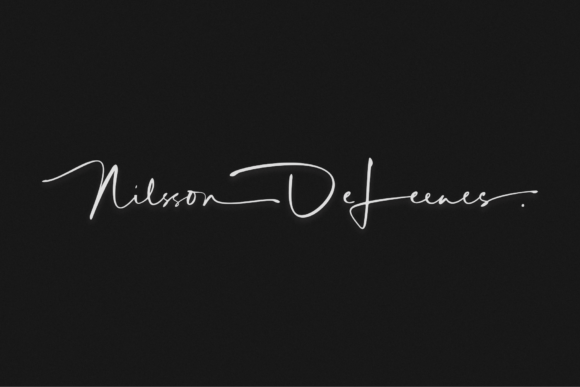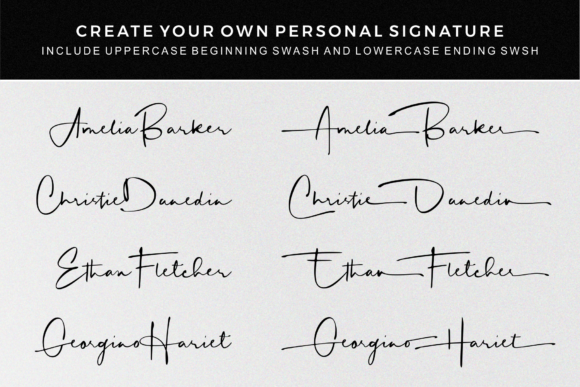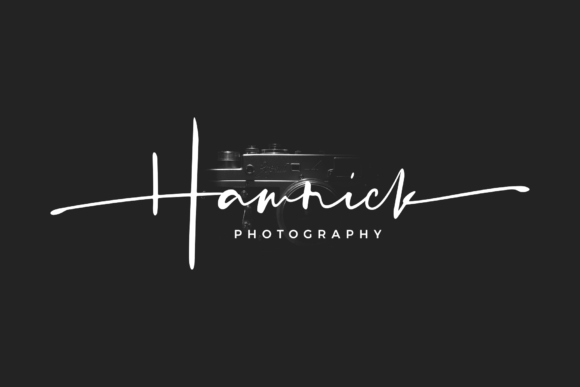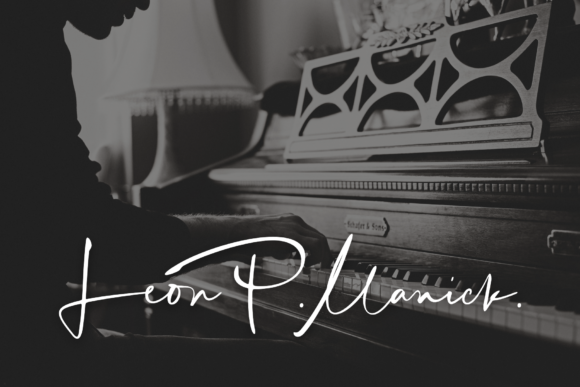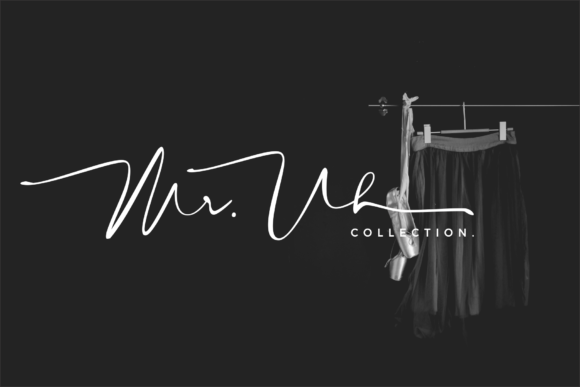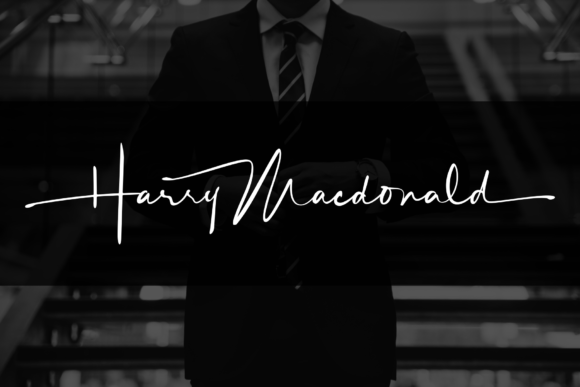
Introduction to Mortdecai Font
Mortdecai is an incredibly elegant and charming handwritten font, full of a personality.
It will add an authentic touch to any design project .
Key Features of Mortdecai Font